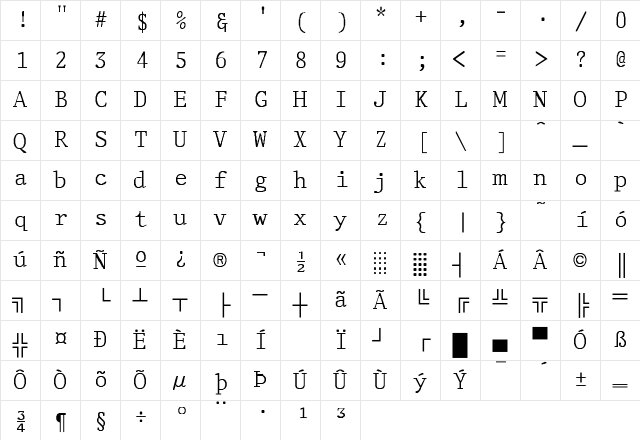
Delegate-Normal Regular
Design Context for Delegate-Normal
Delegate-Normal is a composed and adaptable typeface that performs quietly and consistently across a wide range of design contexts.
Pro Tip: Use Delegate-Normal in both headline and body roles to test its range before committing to a single application.